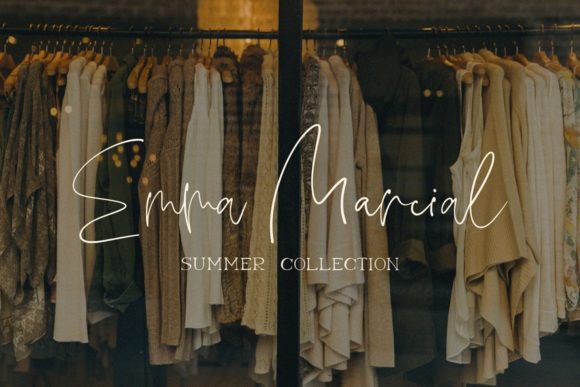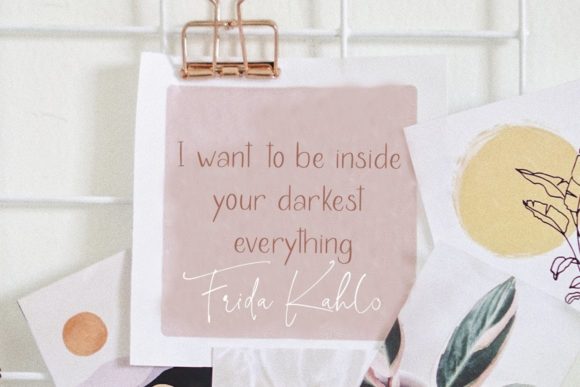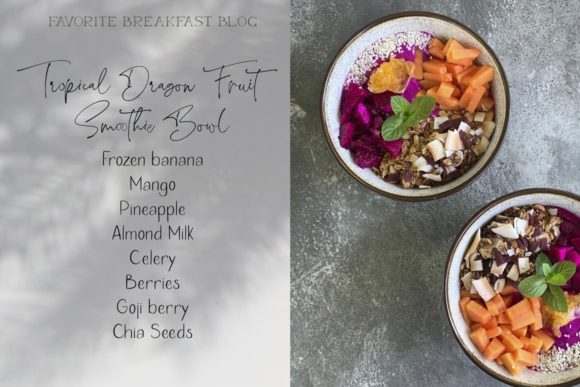
Introduction to Boho Signature Trio Font
Boho Signature Trio is a gorgeous trio font (script, sans serif and serif).
👤 Author Callmestasya
Add it confidently to your projects, and you will love the results This font is PUA encoded which means you can access all of the glyphs and swashes with ease.
Key Features of Boho Signature Trio Font
Why Choose Boho Signature Trio Font?
Boho Signature Trio Font offers exceptional quality and versatility, making it a valuable addition to your design toolkit. Whether you’re creating for personal projects or commercial use, Boho Signature Trio Font delivers professional results.